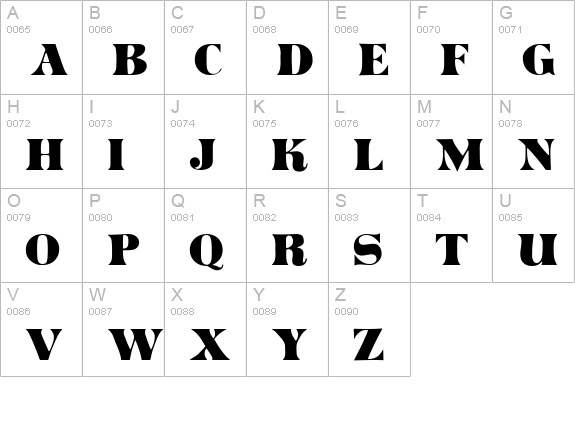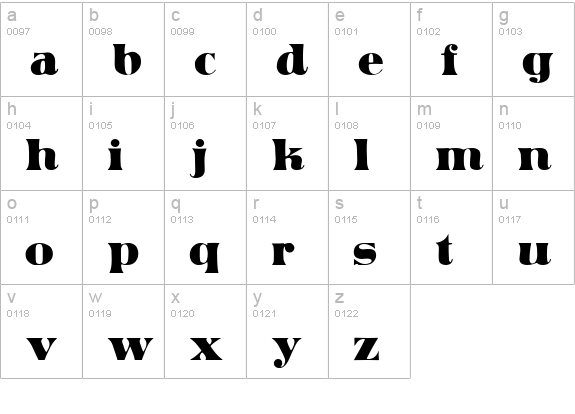
Articula Display SSi Font Details
Articula Display SSi font is a stunning and sophisticated typeface that exudes elegance and modernity. With its sleek and sharp design, this font is perfect for creating eye-catching titles, headings, and logos that demand attention. The clean lines and unique letterforms of Articula Display SSi make it a versatile choice for a wide range of design projects, from branding to editorial layouts. What makes Articula Display SSi font even more appealing is that it is available for free download at FontsMarket.com. This means that you can easily access this stylish font and incorporate it into your designs without any cost. Whether you're working on a personal project or a professional assignment, Articula Display SSi font is sure to elevate your work with its distinctive look and visual impact. Download it today and let your creativity shine with this exceptional typeface.